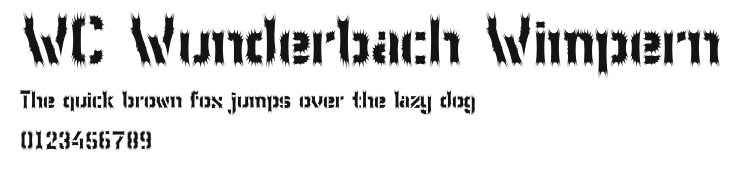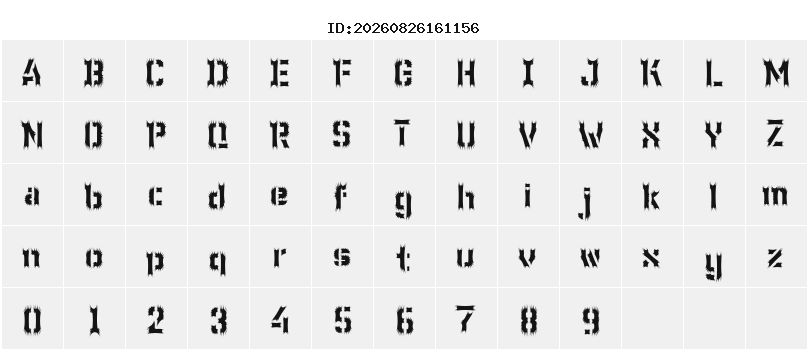
• Font Name: WC Wunderbach Wimpern
• Designer: WC Fonts
• Manufacturer: WC Fonts
About WC Wunderbach Wimpern.otf
WC Wunderbach Wimpern.otf is a modern, elegant sans-serif font designed for ultimate readability and visual harmony. Perfect for branding, headlines, web design, and print materials.